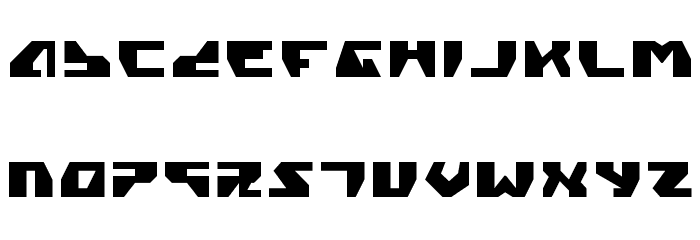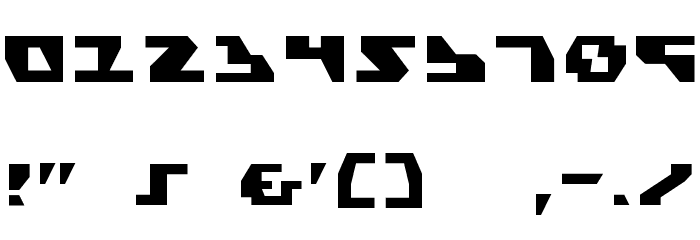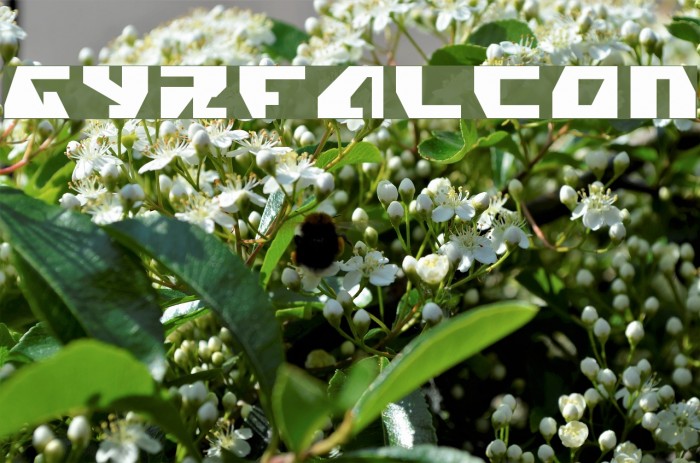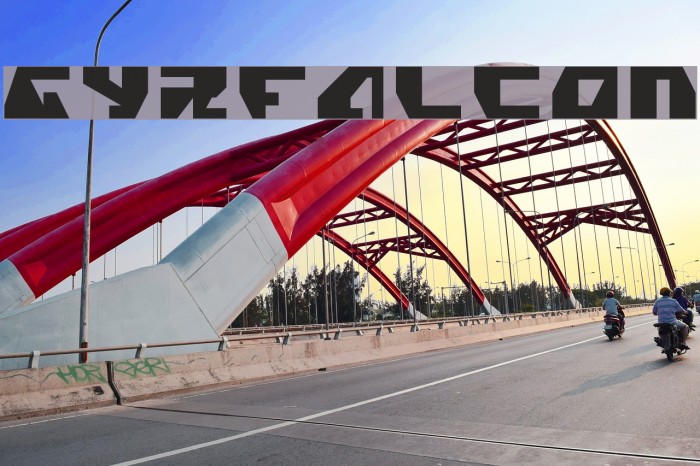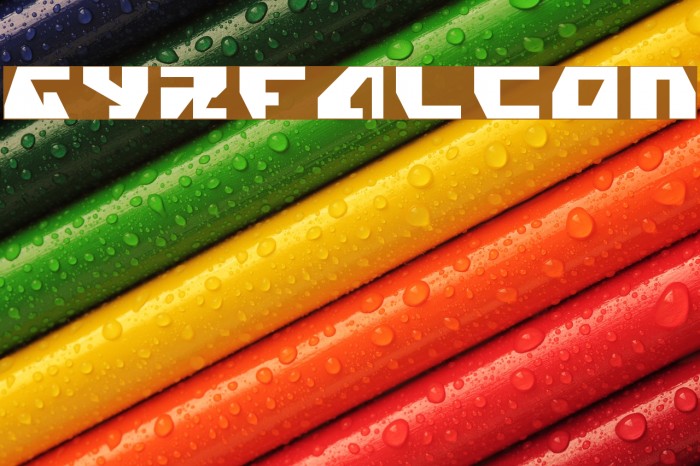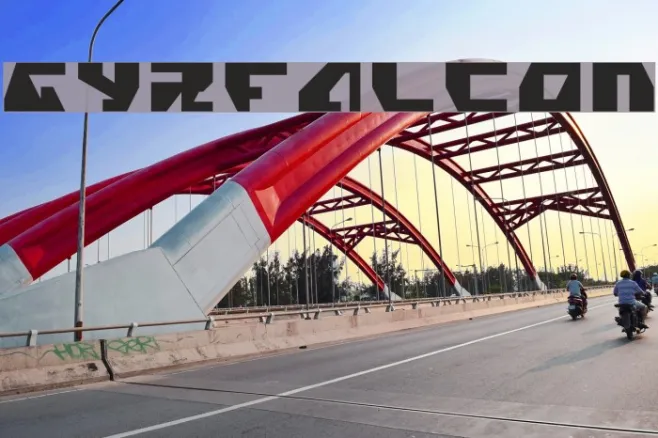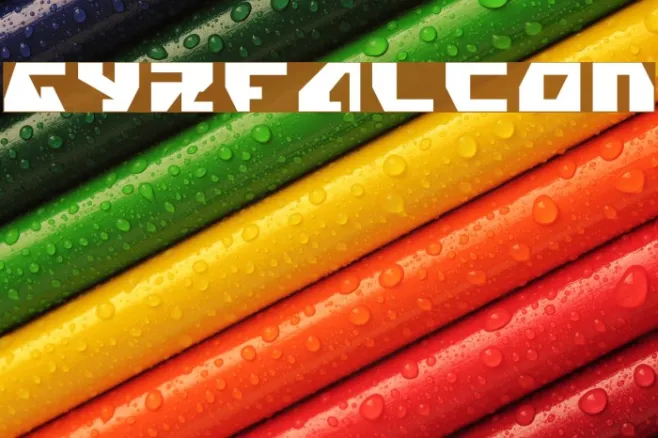
Gyrfalcon Font
This font features a bold and geometric design with sharp, angular edges and a futuristic aesthetic. The characters are constructed with a series of straight lines and sharp angles, giving it a highly stylized and modern appearance. The uppercase and lowercase letters maintain a consistent style, with a uniform thickness that emphasizes the font's boldness. Numbers and special characters follow the same design principles, ensuring a cohesive look across all glyphs. The font's unique style makes it stand out, making it suitable for projects that require a strong visual impact.
- Font: Gyrfalcon
- Proposed Projects: Ideal for sci-fi themed designs, video game titles, tech branding, and modern posters.
- Overall Style: Futuristic